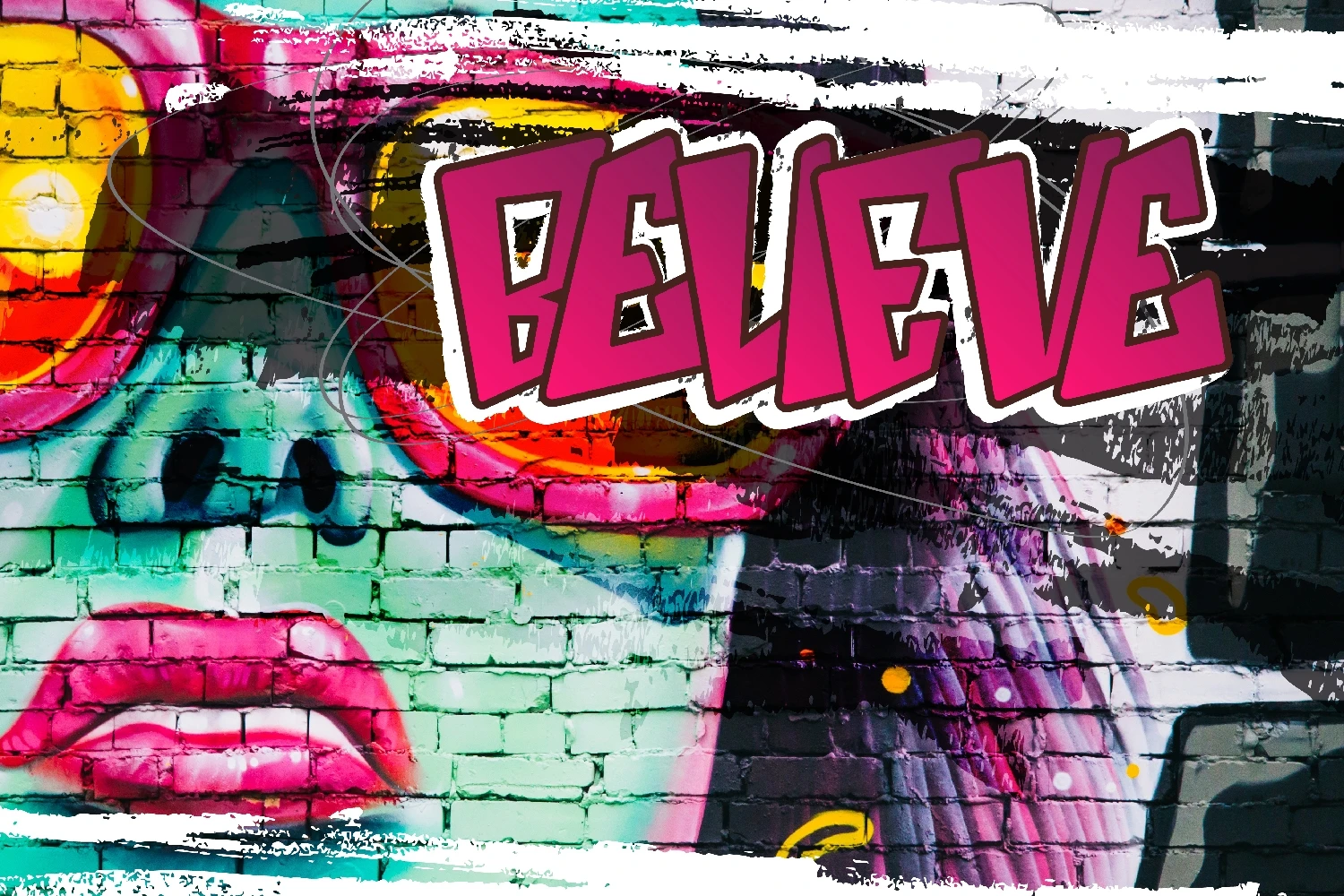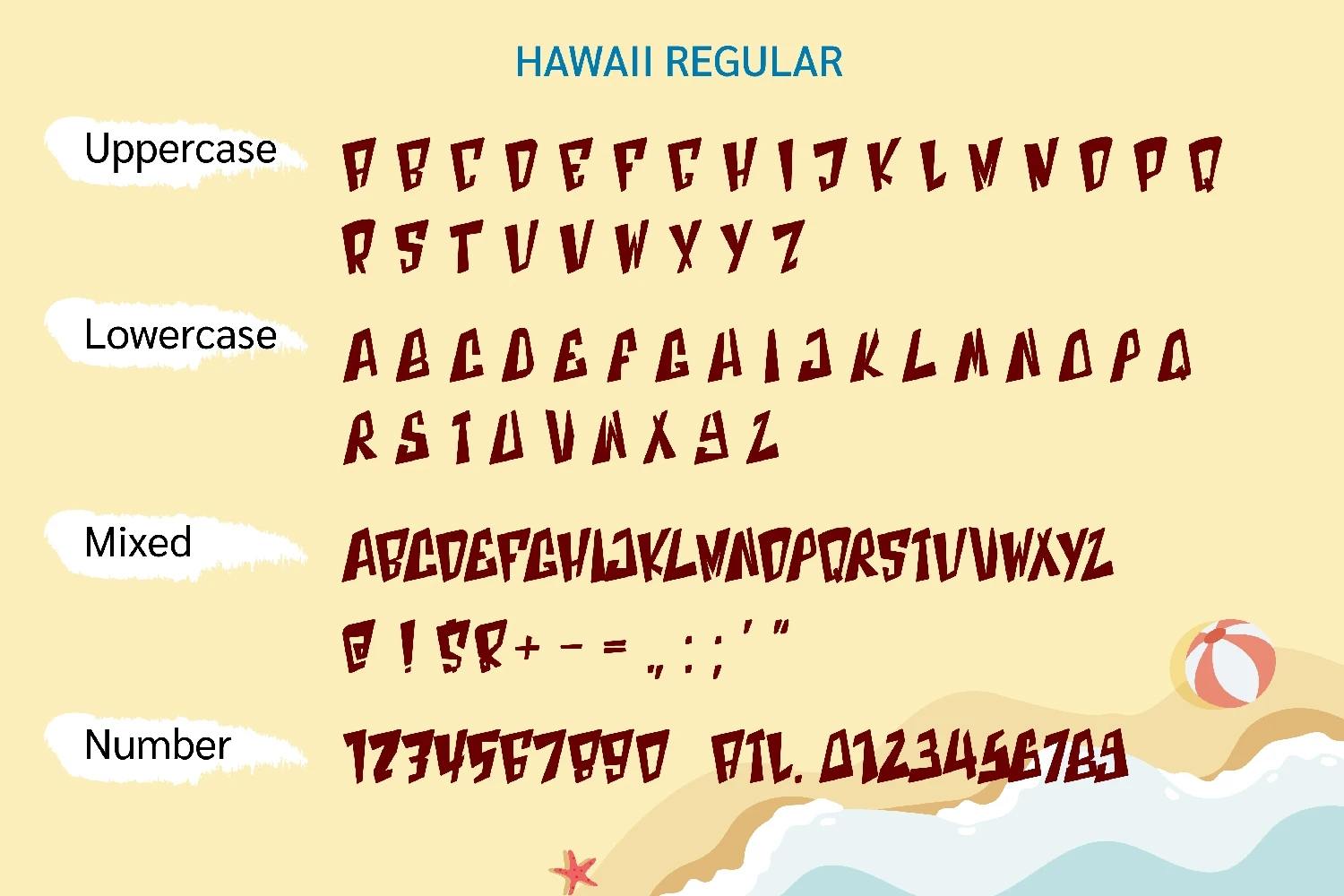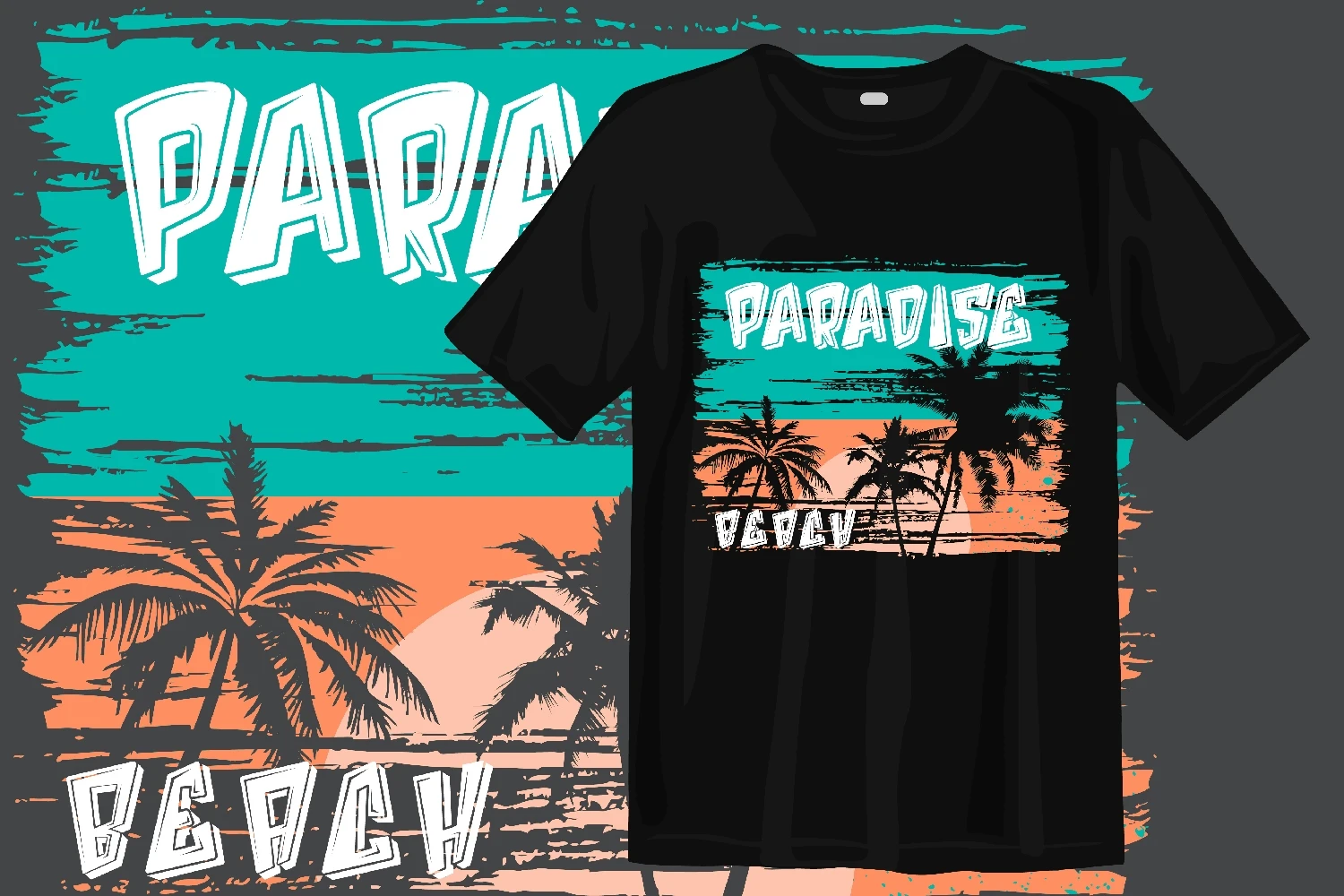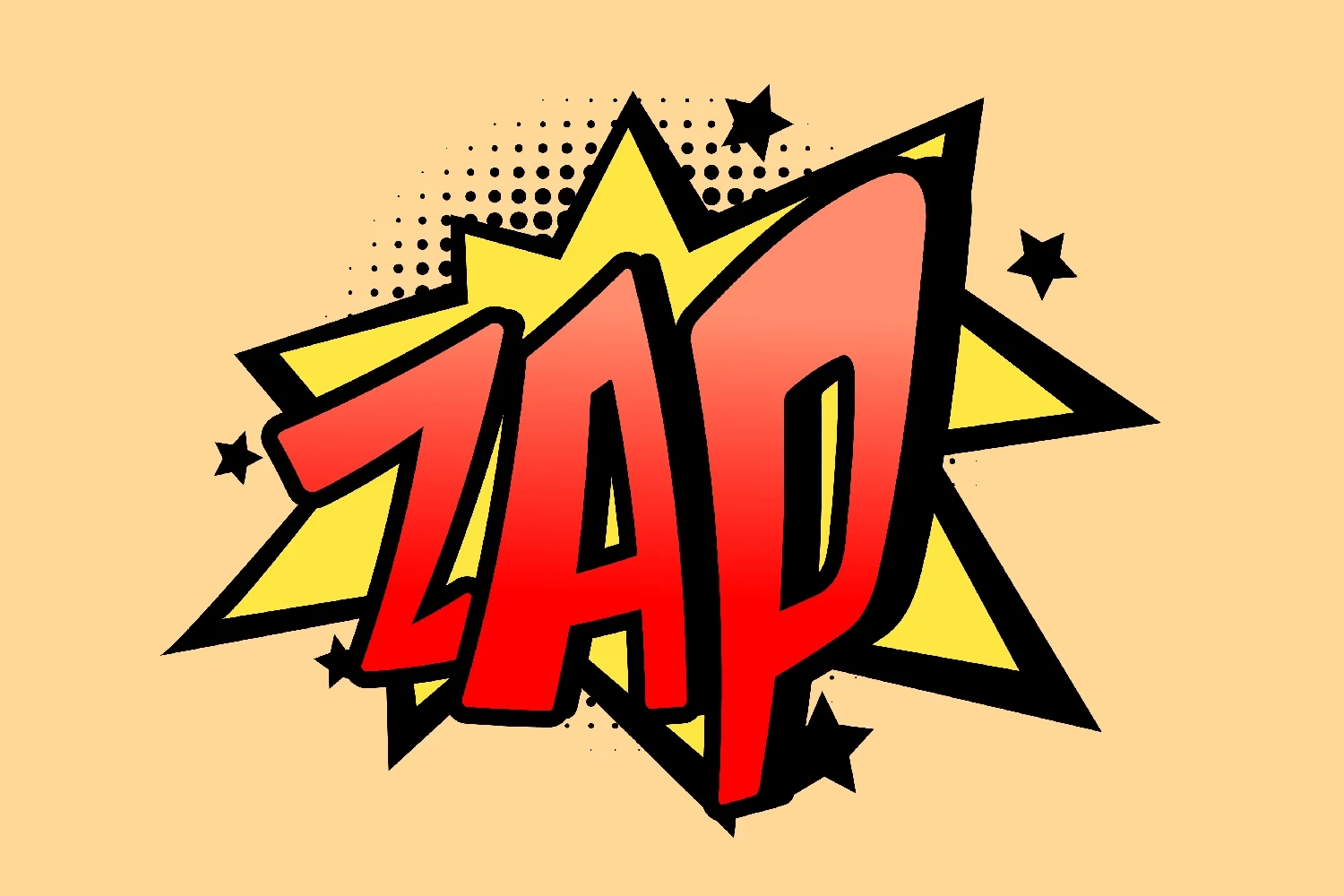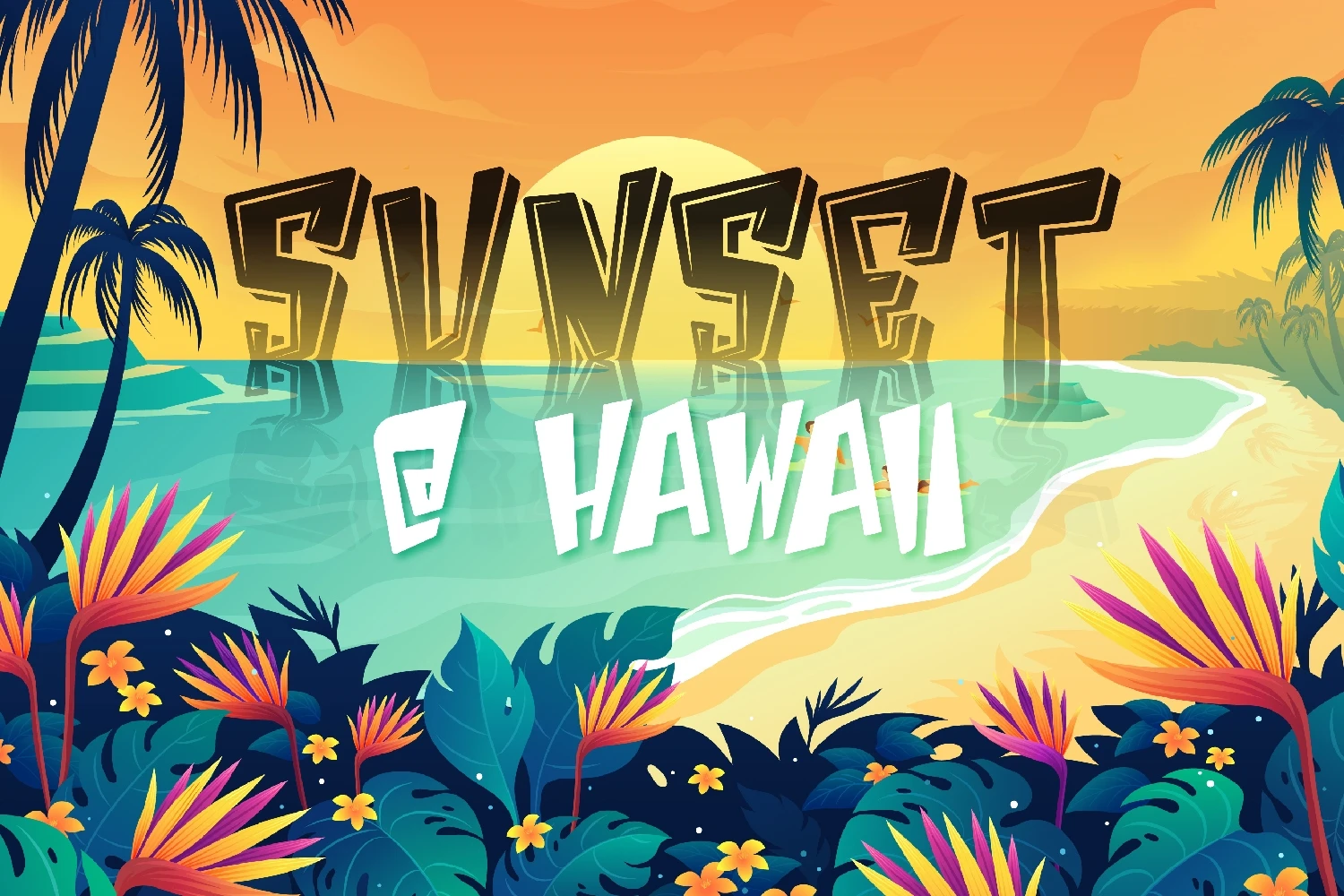
Hawaii is a bold and quirky display font. Its friendly and summery feel makes this font incredibly versatile, fitting a wide range of contexts. Add it to your exotic ideas and notice how it makes them stand out!